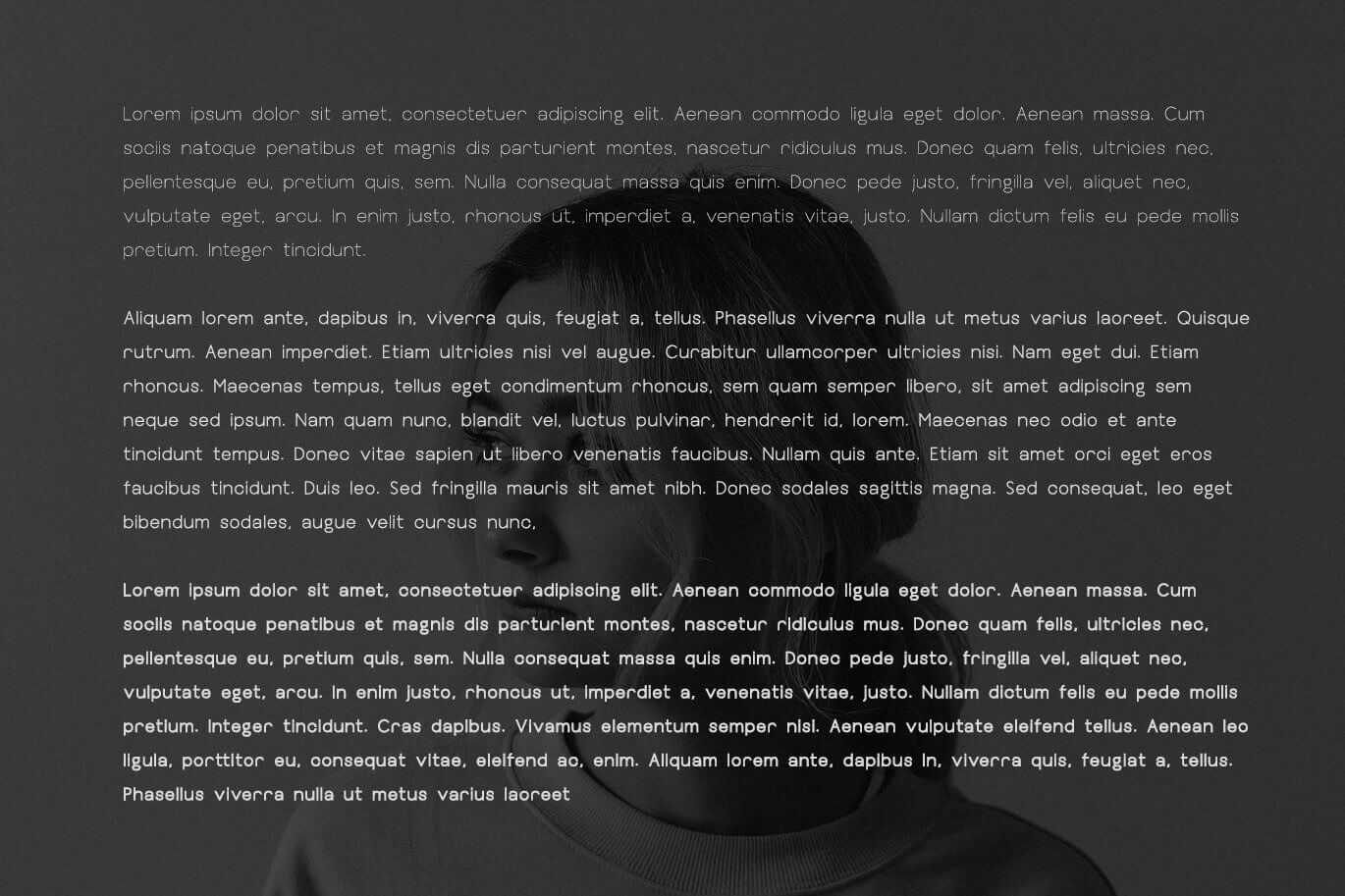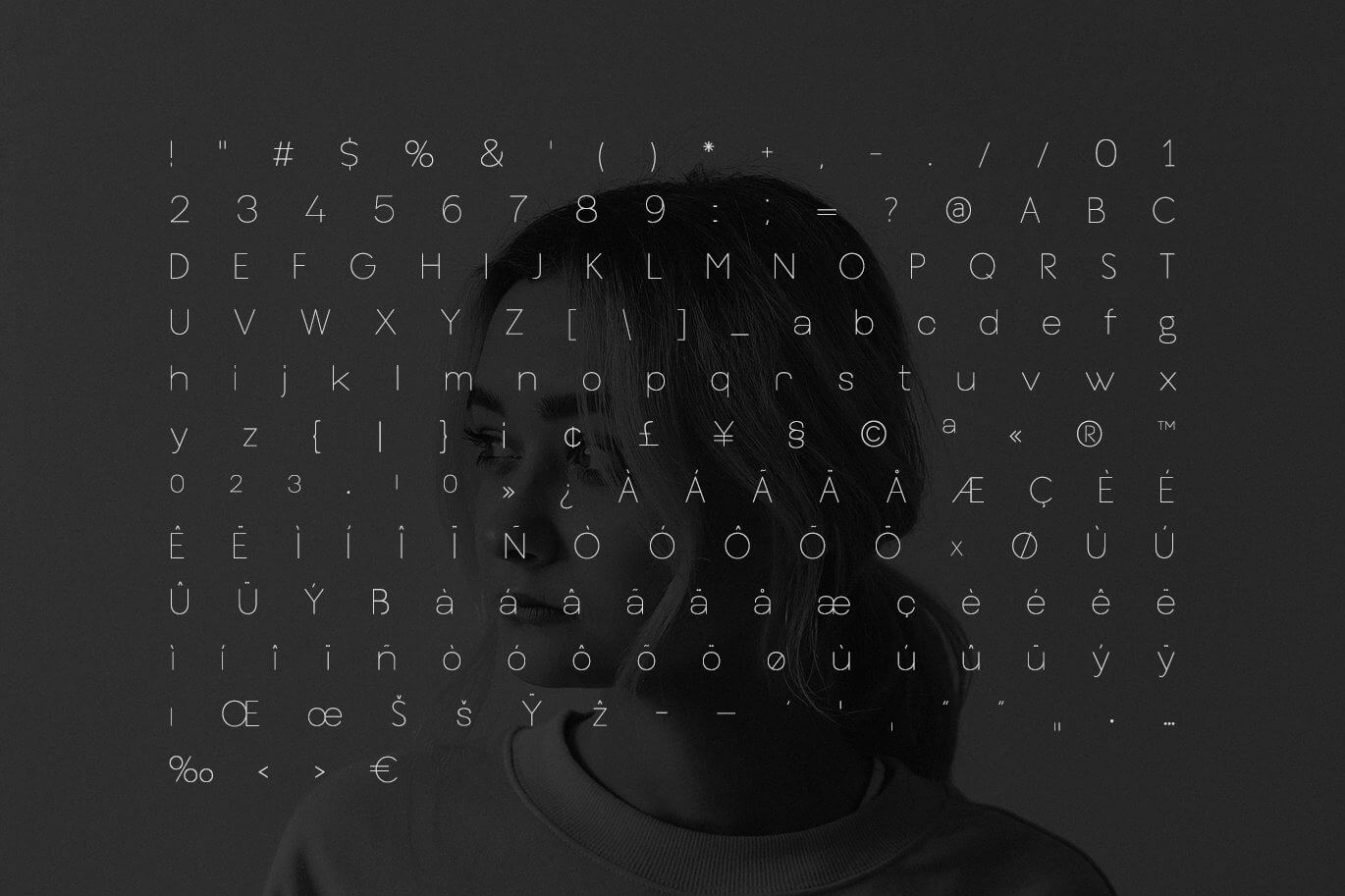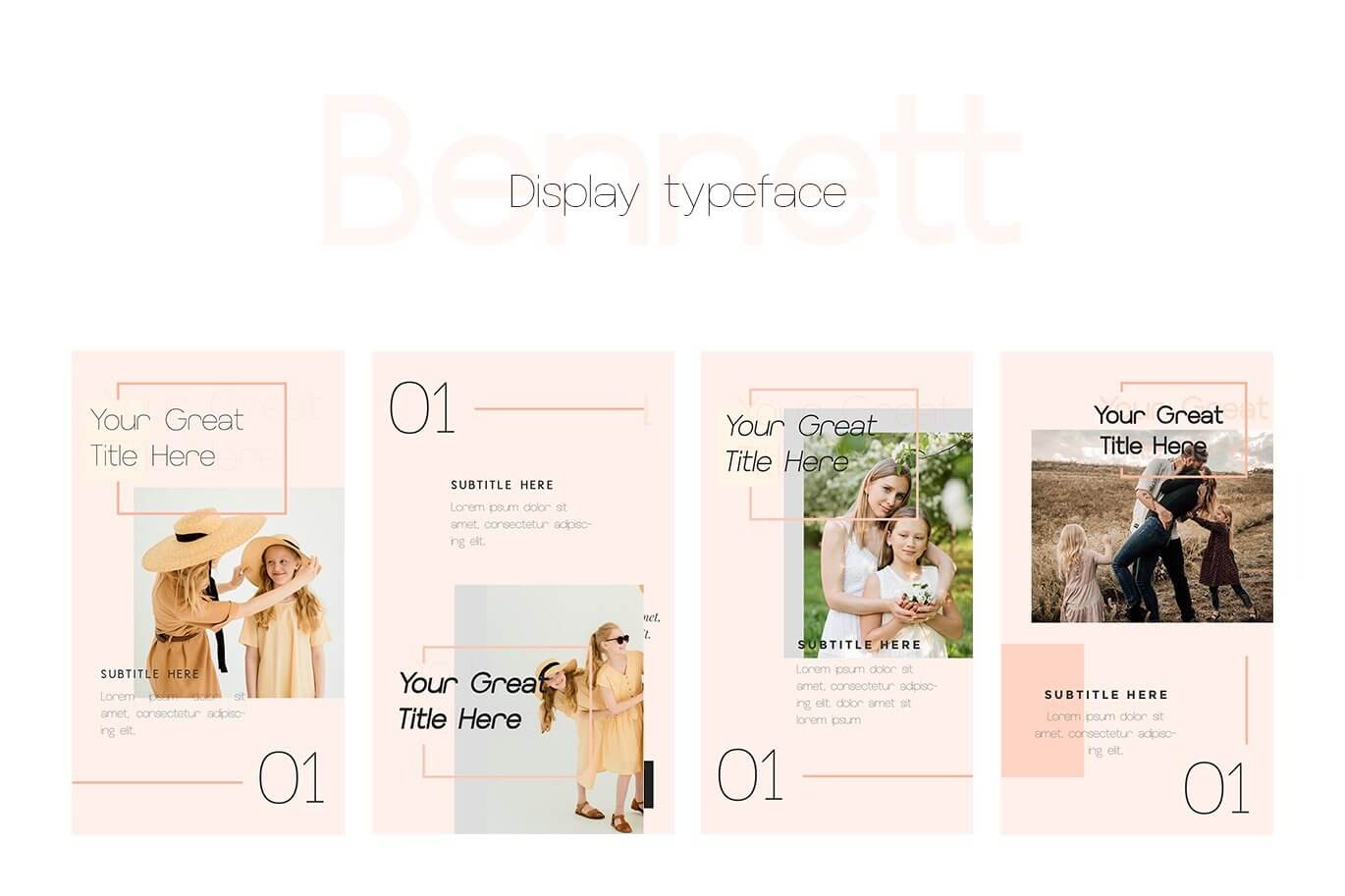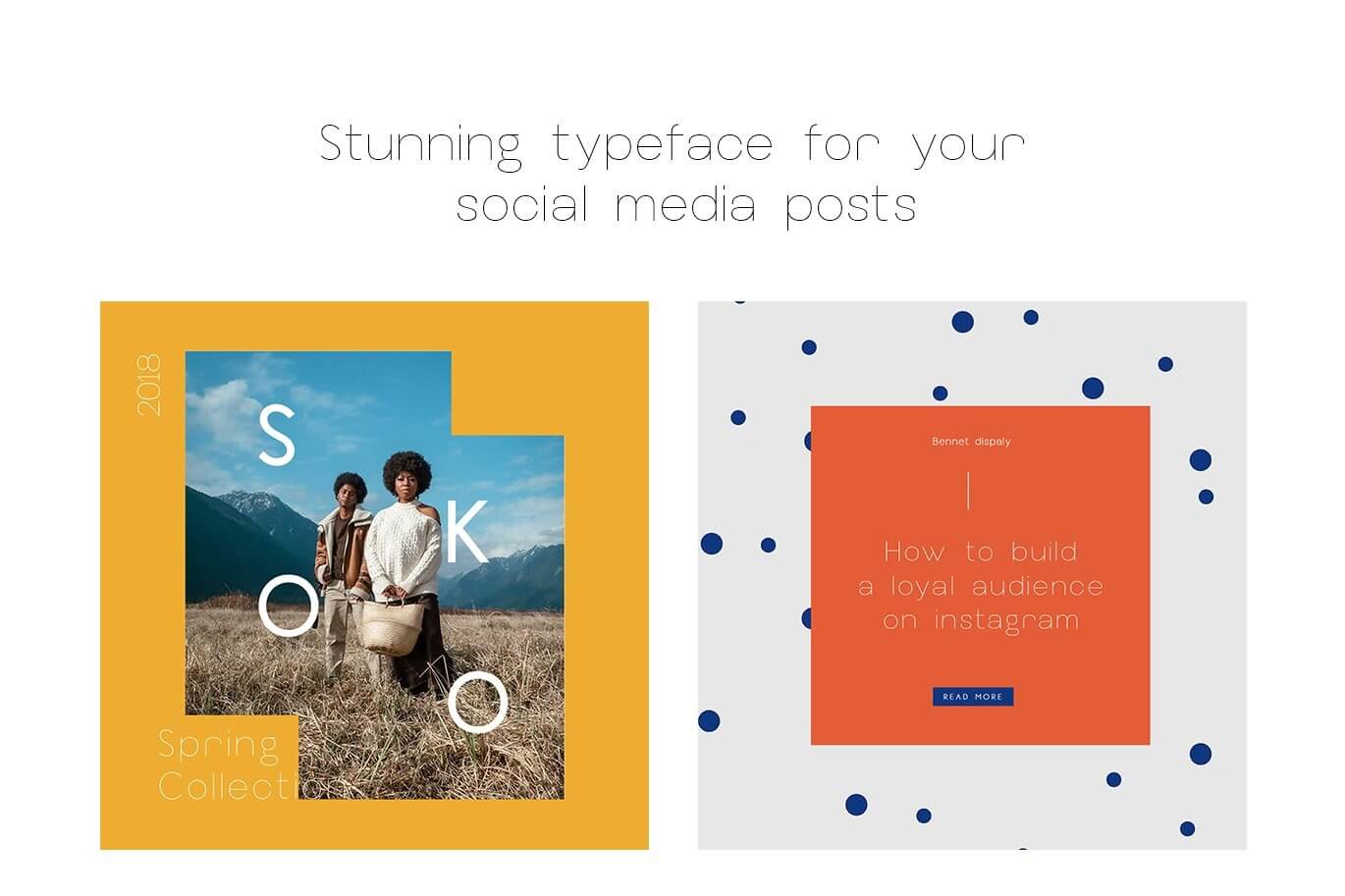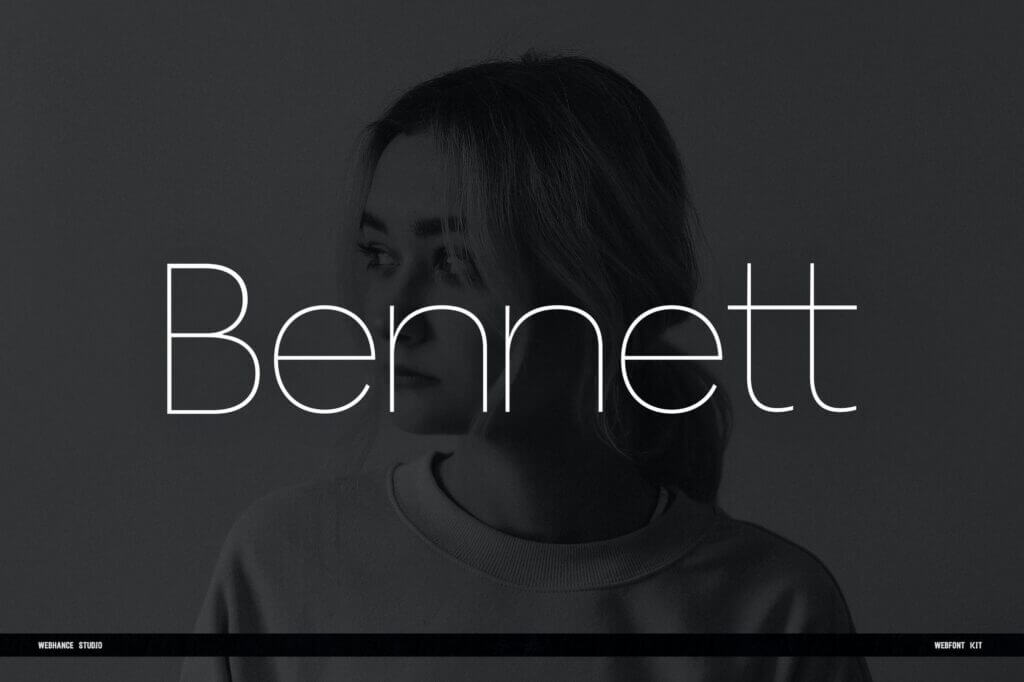
The Bennett Display Font is a bold, modern typeface designed to make a statement. With artistic curves and a premium finish, it combines strong visual impact with a sophisticated aesthetic, making it perfect for designers who want their work to stand out. Whether you’re creating a brand identity, magazine layout, website header, or app interface, the Bennett Display Font delivers a powerful and versatile solution.
Bennett’s unique character line captures a sense of creativity and confidence. It’s more than just a display font—it’s a storytelling tool. Each letterform has been carefully crafted to balance visual flair with legibility, making it suitable for both digital and print applications. From bold advertising headlines to cinematic title sequences, this font family adapts effortlessly to a wide range of styles and contexts.
This font isn’t just about aesthetics—it’s also functional. The Bennett Display Font includes a full set of uppercase letters, numbers, punctuation, and multilingual support, giving you flexibility in your design work. Whether you’re designing for luxury fashion, cutting-edge tech, or a lifestyle brand, Bennett’s modern yet timeless style fits seamlessly into your vision.
Bennett works brilliantly for logos, magazines, social media graphics, apparel, packaging, signage, and more. It holds attention while staying clean and stylish, ensuring your message is always clear and compelling. Its social, artistic energy brings a human touch to any visual project.